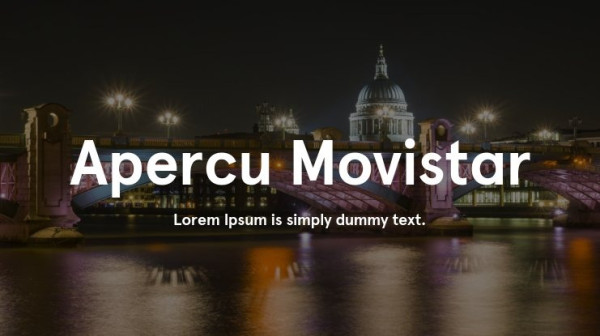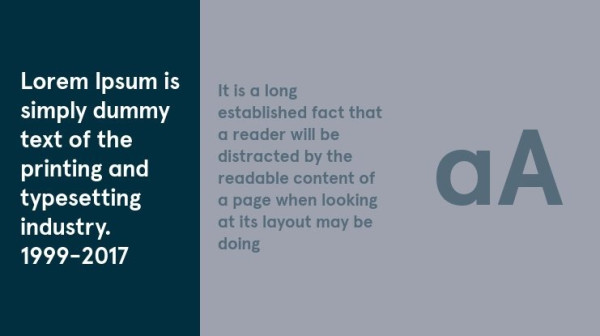
Apercu Movistar Font, is a sans serif stunning when combined or separately. This sans serif font style is legible and stunningly designed.
Apercu Movistar Font
| Designer Name: | The Entente |